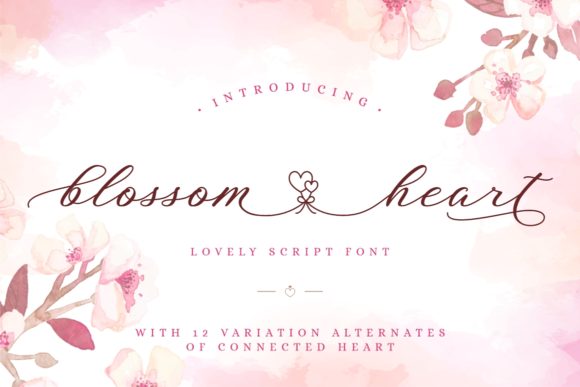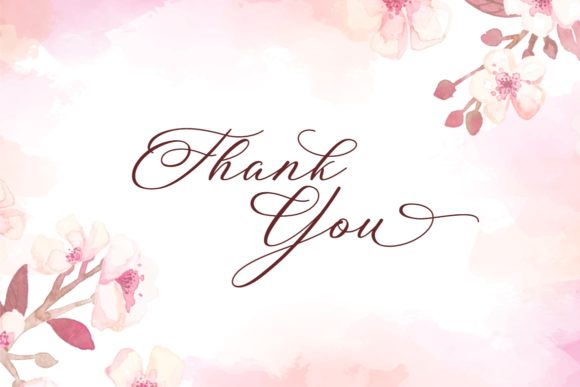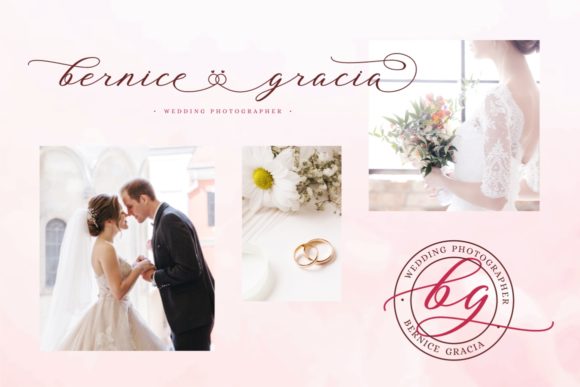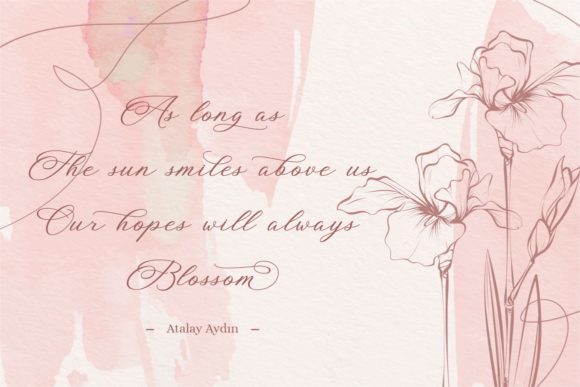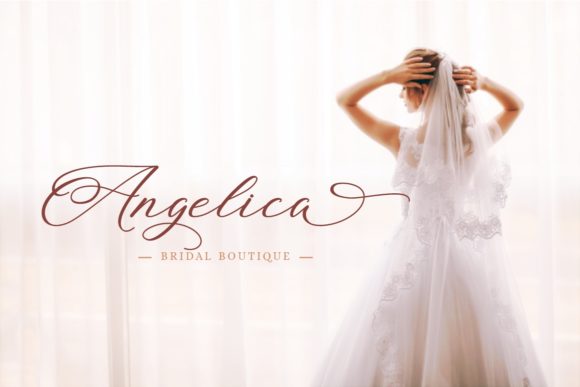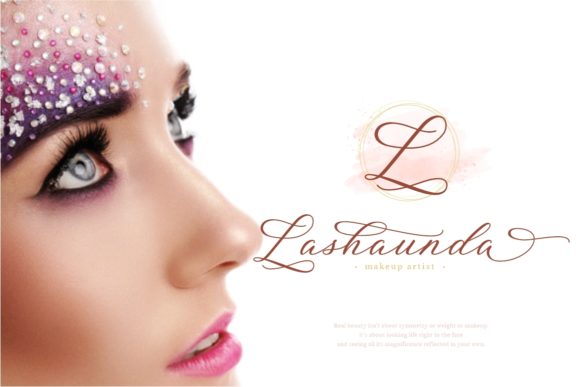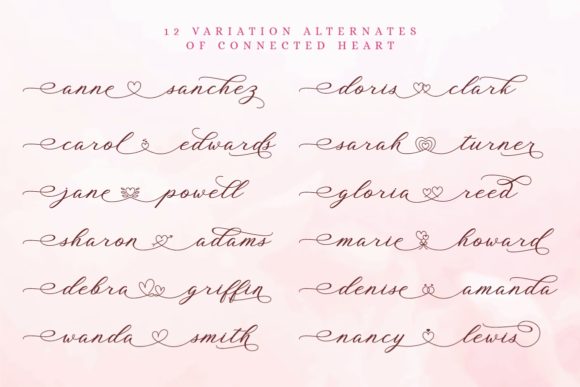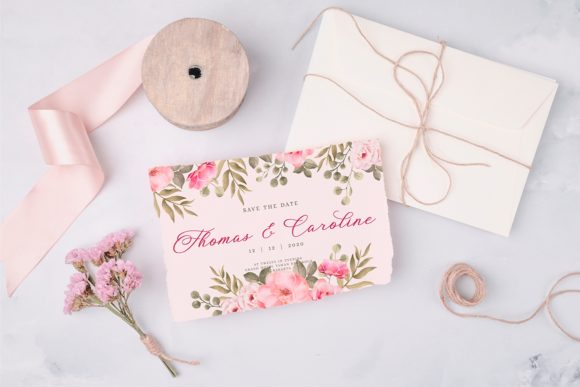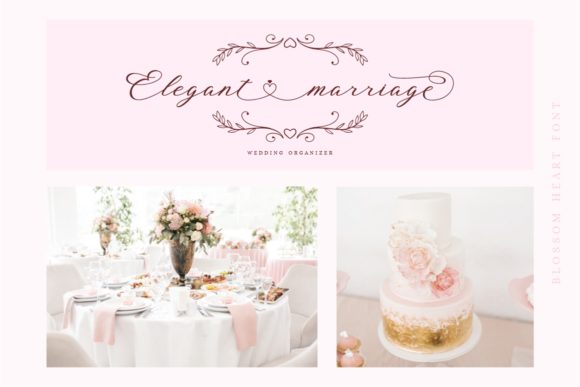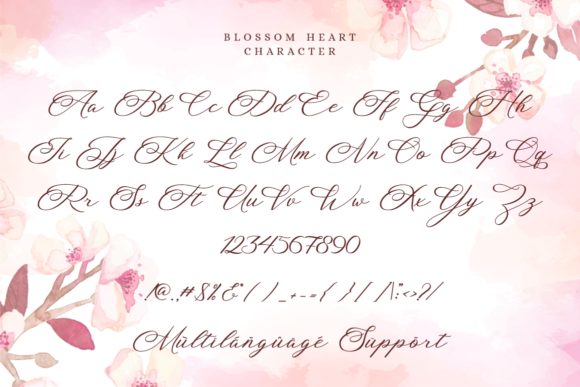
Blossom Heart Font
About Blossom Heart Font
Blossom Heart is a beautiful and romantic script font that exudes charm and elegance. With its delicate strokes and tiny heart ornaments, this font is perfect for adding a touch of romance to your designs.
One of the standout features of Blossom Heart is the inclusion of tiny hearts as ornaments within the font. These adorable details add a whimsical and playful element to the overall design, making it ideal for romantic and heartfelt projects. Whether you’re creating wedding invitations, love letters, or greeting cards, the heart ornaments in Blossom Heart will bring an extra level of sweetness to your designs.
The font is designed with a balanced and varied thickness, creating a harmonious flow that enhances the overall beauty of your projects. The strokes are not too thin nor too thick, striking the perfect balance to ensure readability and elegance. This versatility makes Blossom Heart suitable for a range of design applications, including logos, branding, quotes, and more.
With PUA encoding, accessing the various glyphs and swashes in Blossom Heart is made easy. PUA (Private Use Area) encoding allows you to access and utilize special characters, alternate letterforms, and decorative swashes, giving you even more creative freedom to customize and personalize your designs.
Whether you’re designing wedding stationery, love-themed social media graphics, or romantic posters, Blossom Heart is a font that will captivate and engage your audience. Its romantic and charming aesthetic adds a touch of elegance and sophistication to any project, making it a go-to choice for those seeking a romantic and heartfelt vibe.
In summary, Blossom Heart is a romantic and charming script font with adorable heart ornaments. Its balanced and varied thickness, along with the PUA encoding for easy access to glyphs and swashes, makes it a versatile choice for a wide range of design projects. Let Blossom Heart enhance the beauty of your creations and add a touch of romance to your designs.